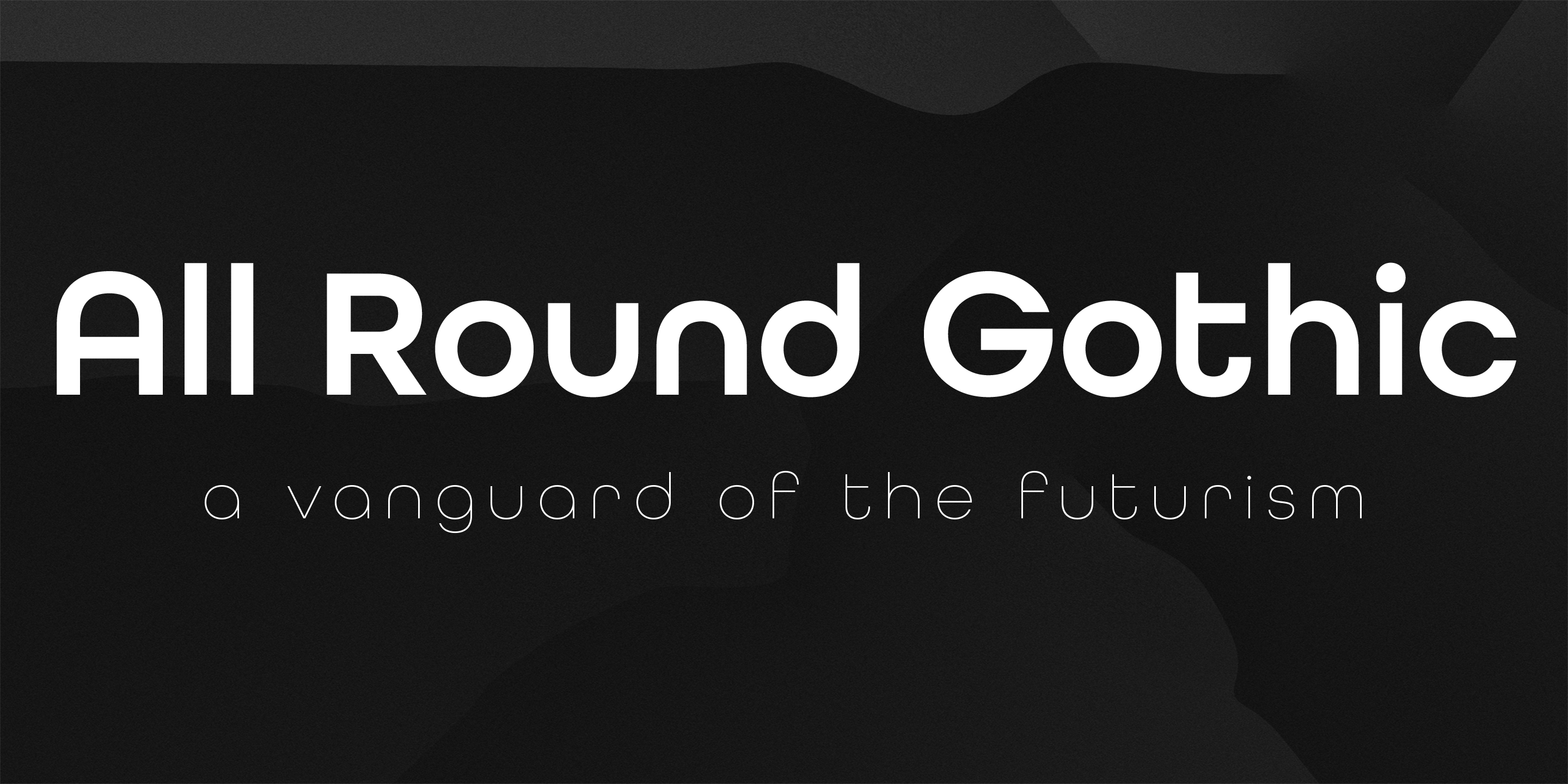
All Round Gothic Font excels in various design applications including versatile corporate branding, comprehensive design systems, multi-purpose logos, adaptable web interfaces, flexible packaging designs, universal signage projects, all-purpose marketing materials, and complete brand identity solutions. This comprehensive typeface adapts seamlessly to both diverse digital platforms and varied print materials, making it perfect for designers seeking complete versatility and gothic reliability in their visual communications.
All Round Gothic Font generates excitement among design professionals due to its comprehensive character and gothic styling that instantly conveys reliability and universal functionality. The font's sturdy letterforms and well-rounded proportions create an immediate sense of dependability and complete design solutions. Its all-purpose personality makes it particularly appealing for brands wanting to communicate versatility, reliability, and comprehensive quality in their visual identity.
The All Round Gothic Font family includes multiple weights and styles such as Regular, Bold, Light, Medium, and Extended variations. Each family member maintains gothic design principles while offering distinct versatile characteristics. The Light weight provides subtle gothic elegance for refined applications, while the Bold version delivers strong impact for comprehensive headlines and all-purpose brand statements.
Versatile designers frequently choose All Round Gothic Font Free Download for projects requiring both gothic authenticity and comprehensive distinction. This typeface demonstrates remarkable effectiveness across diverse industries including corporate services, design agencies, versatile brands, and multi-purpose organizations. Its all-round character allows companies to communicate complete reliability while maintaining excellent readability and gothic visual appeal that works effectively across all design applications and communication needs.